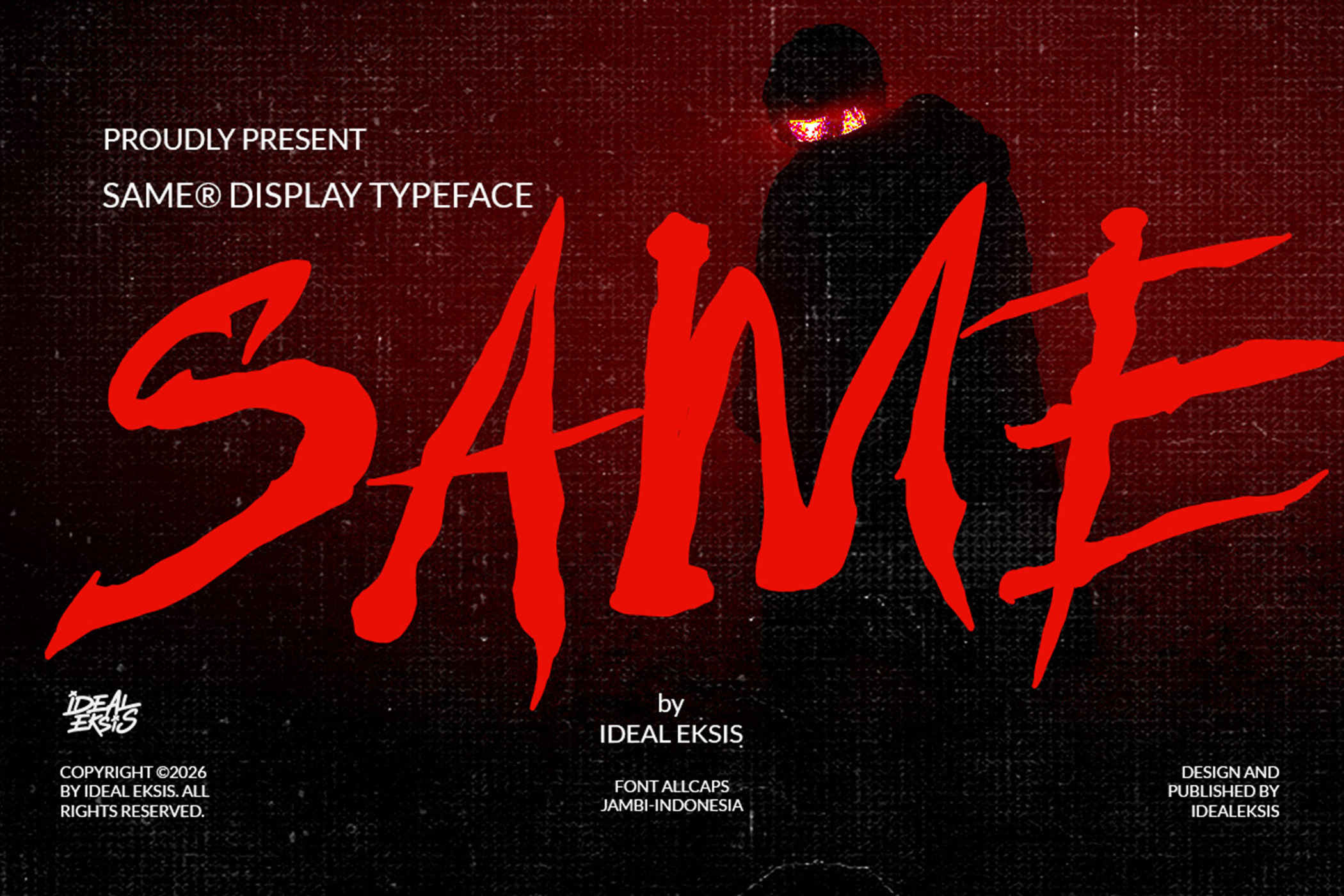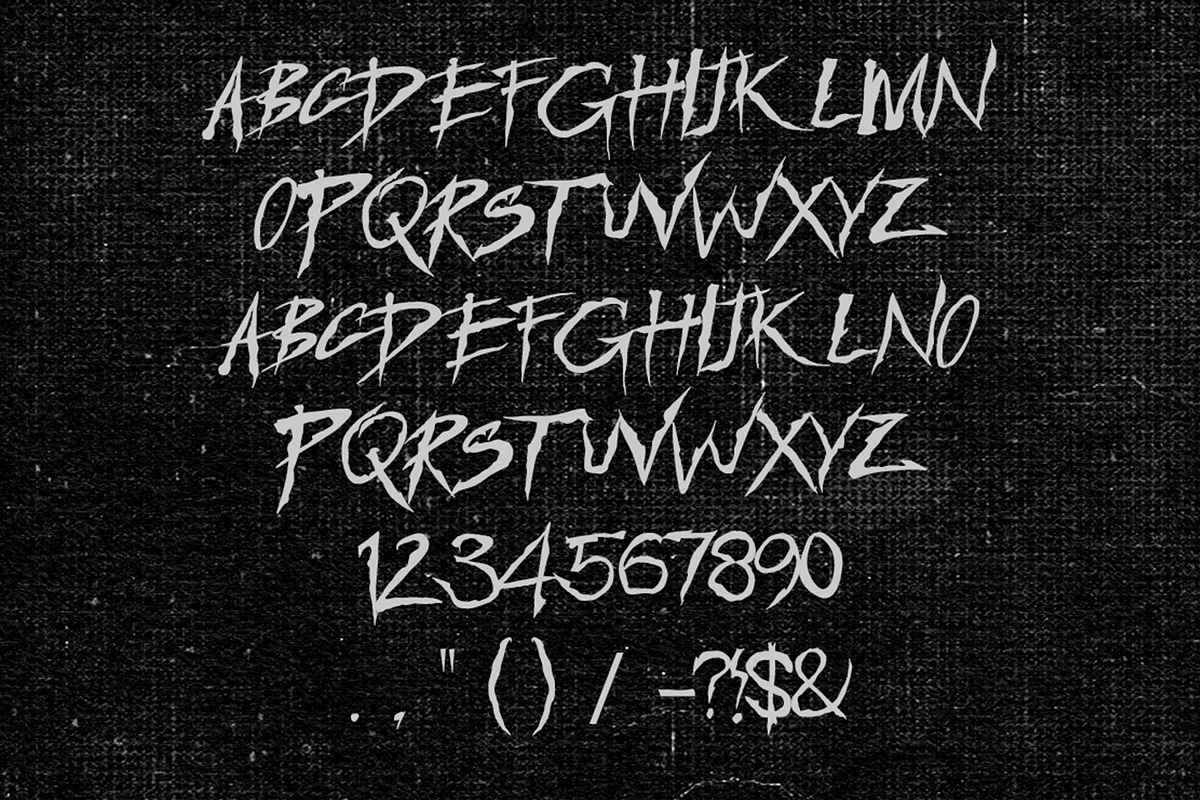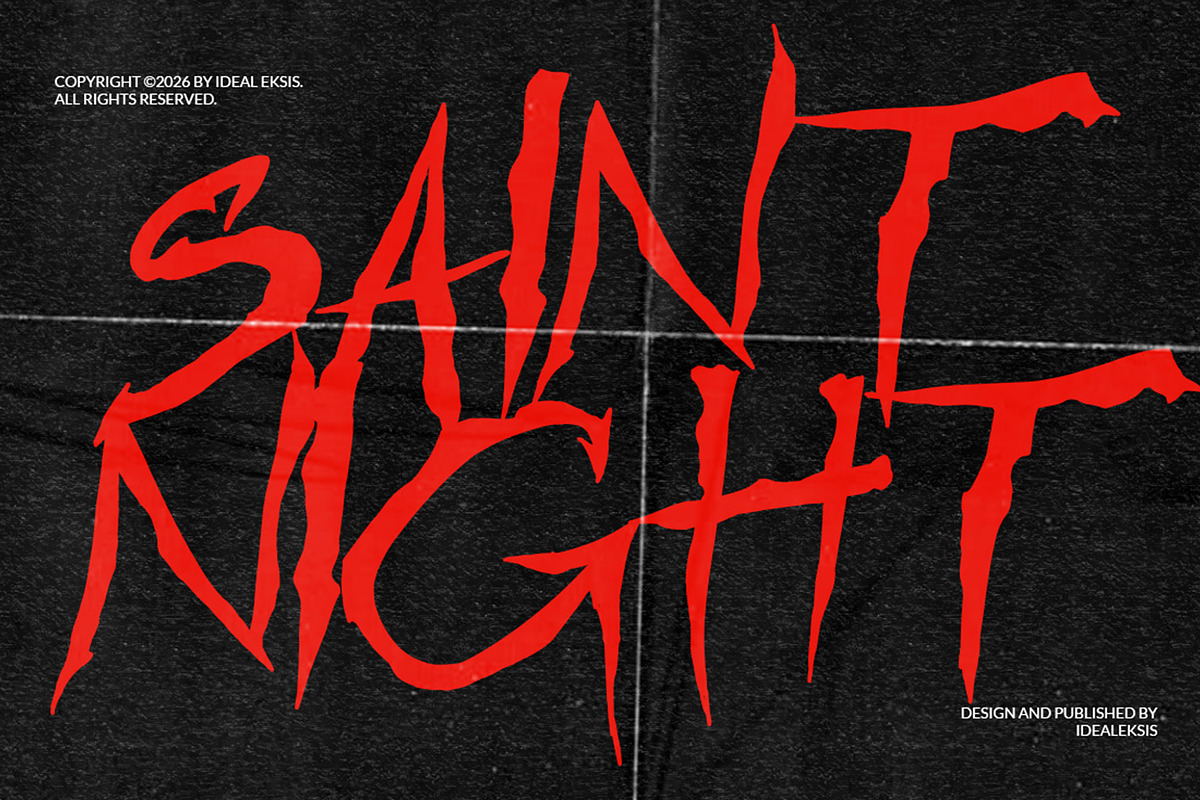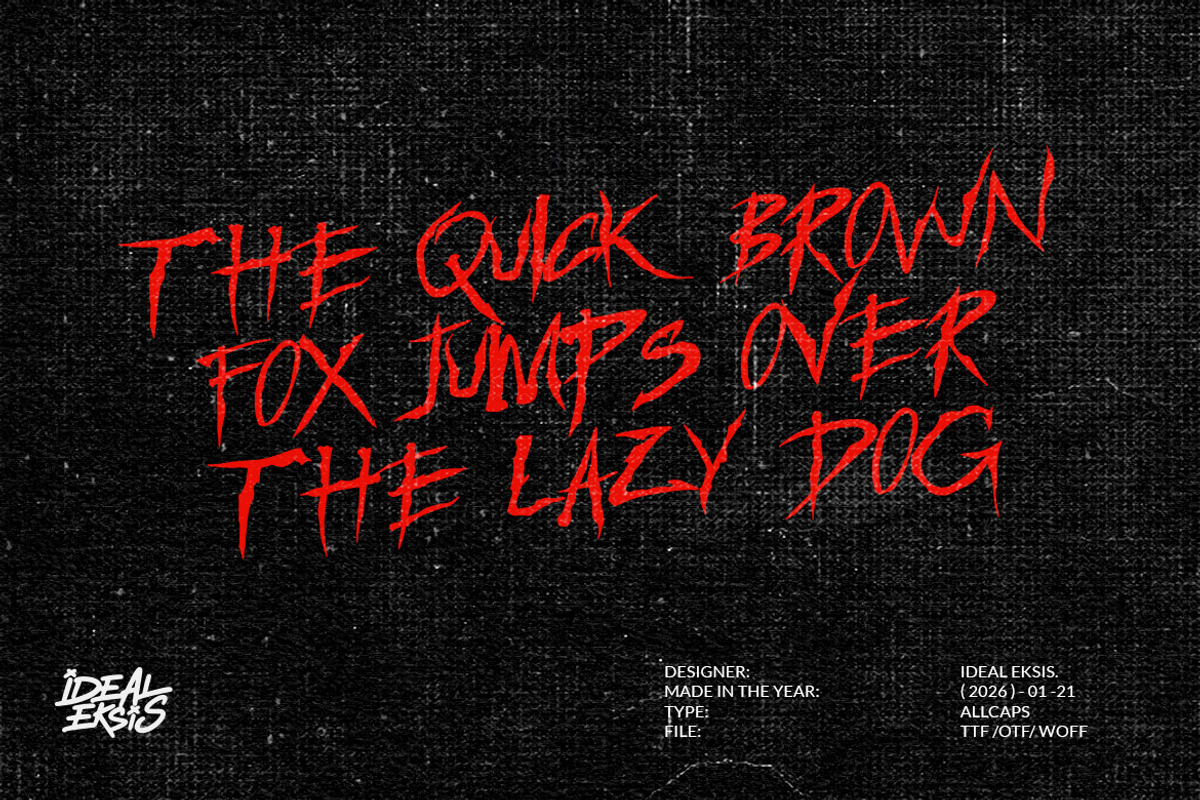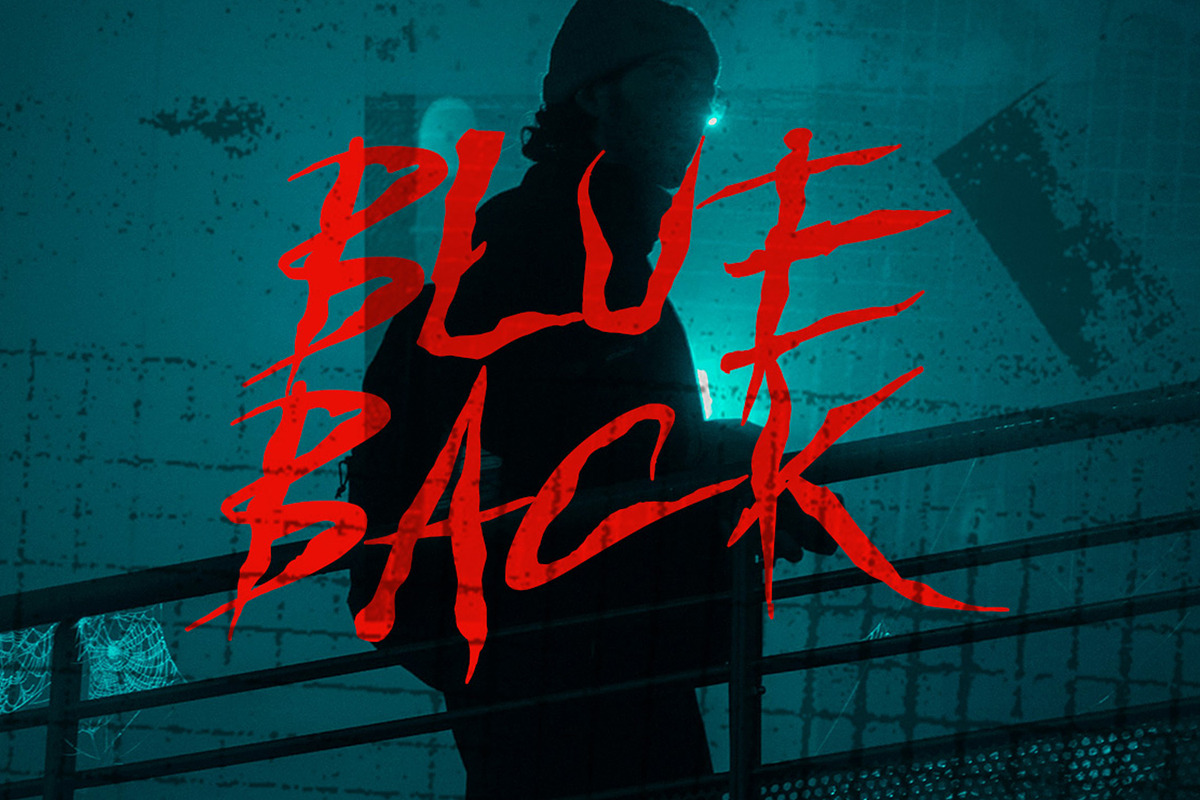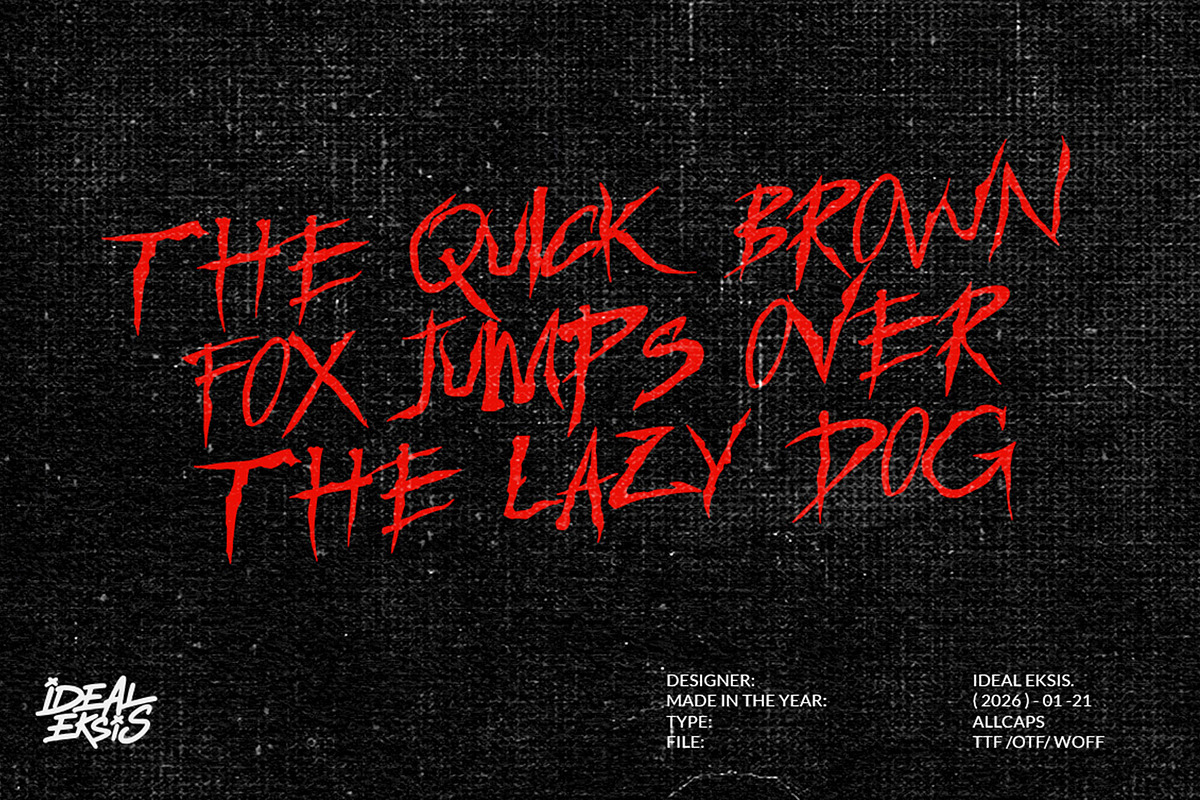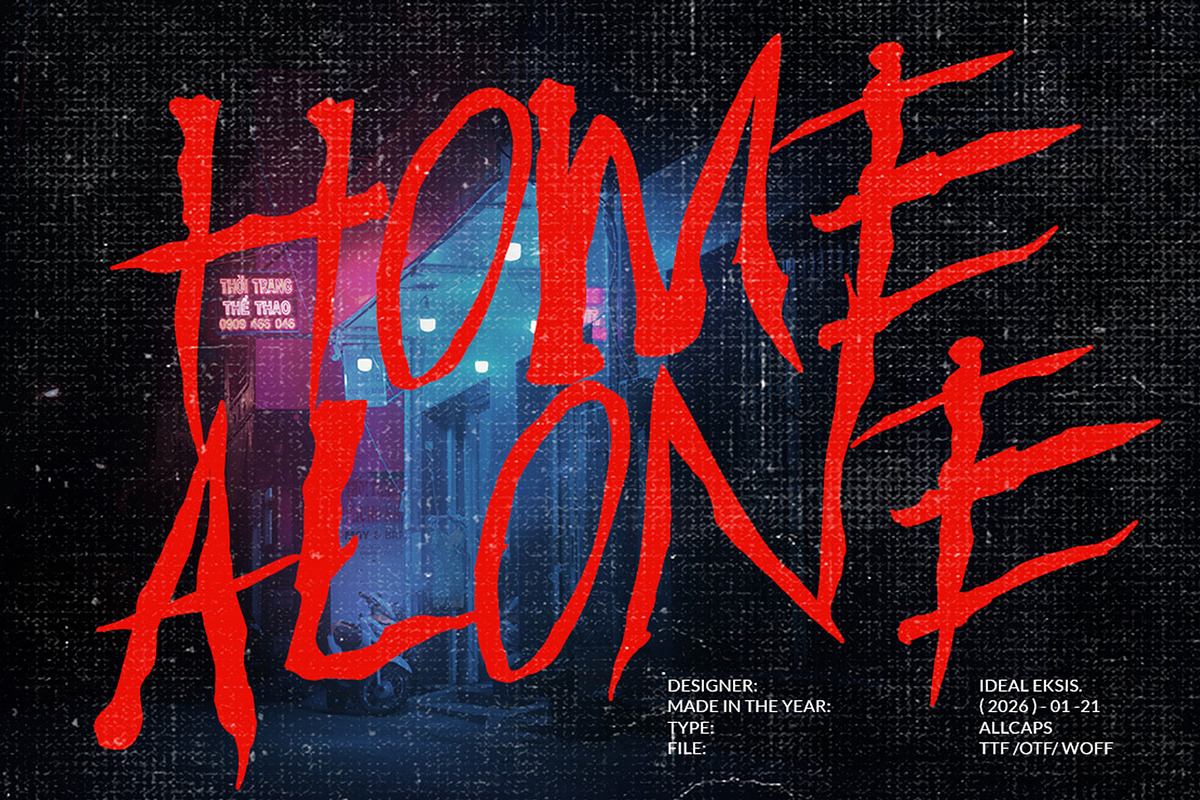
Same - Horror Font
This display typeface is characterized by its aggressive, jagged letterforms that evoke a sense of raw, unbridled energy. The strokes are thick and uneven, featuring sharp, thorn-like terminals and serrated edges that contribute to a gritty, grunge aesthetic. The high-contrast weight and irregular contours create a visceral visual experience, making it ideal for high-impact applications such as cinematic posters, album covers, and bold editorial layouts. Its expressive nature and hand-drawn quality provide a unique, edgy character that commands attention in any design context requiring a sense of intensity and rebellion.
Uppercase (All Caps)
Numerals